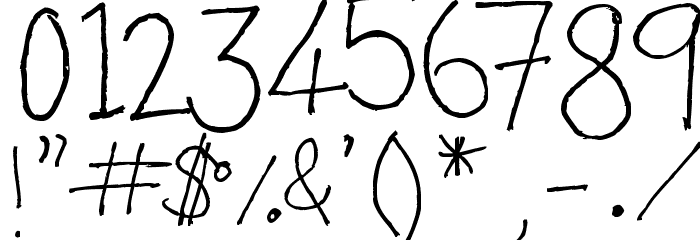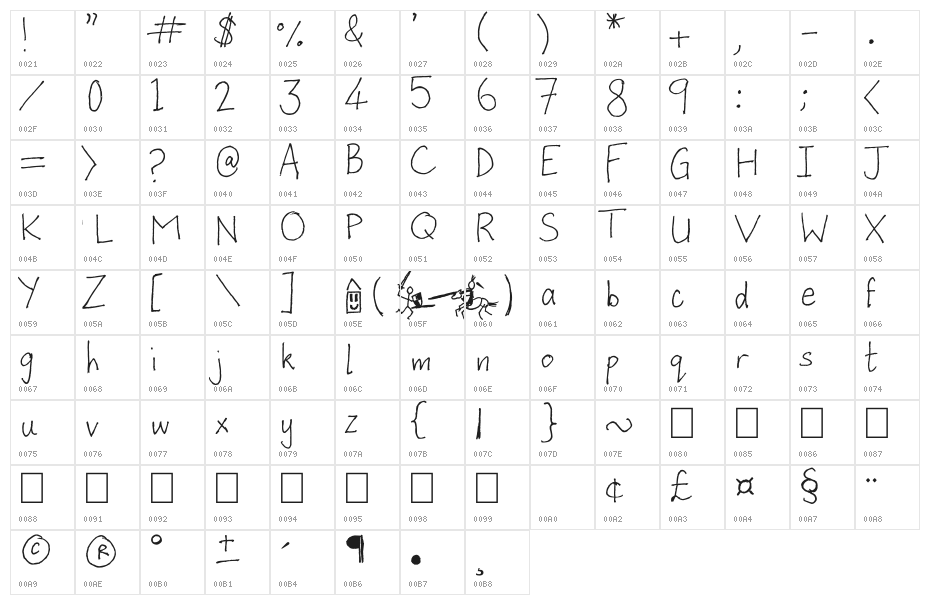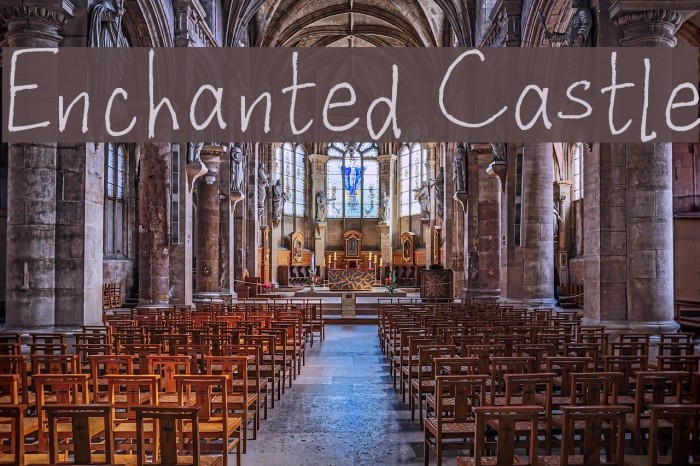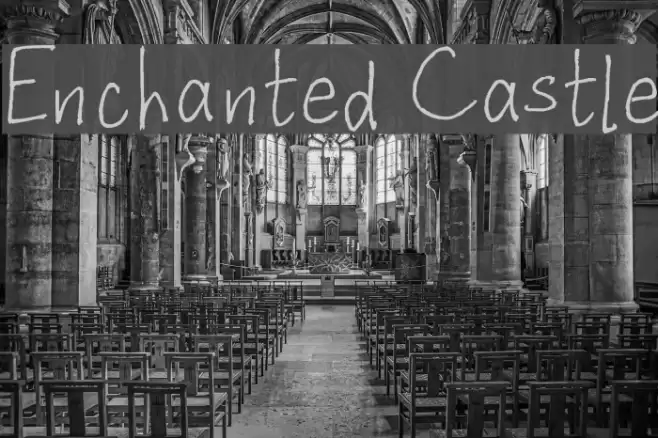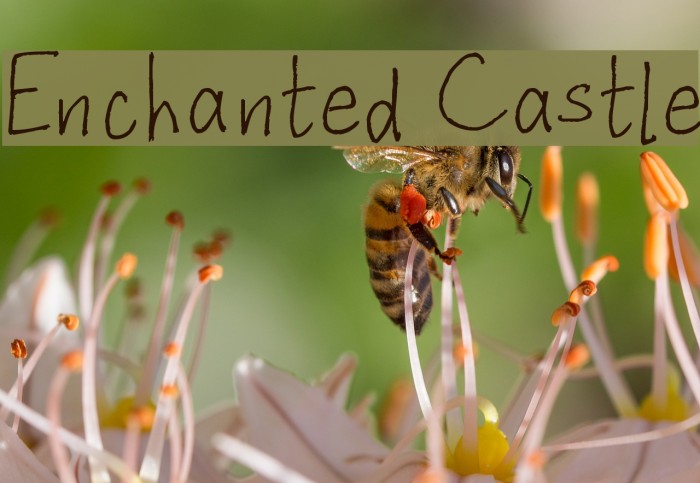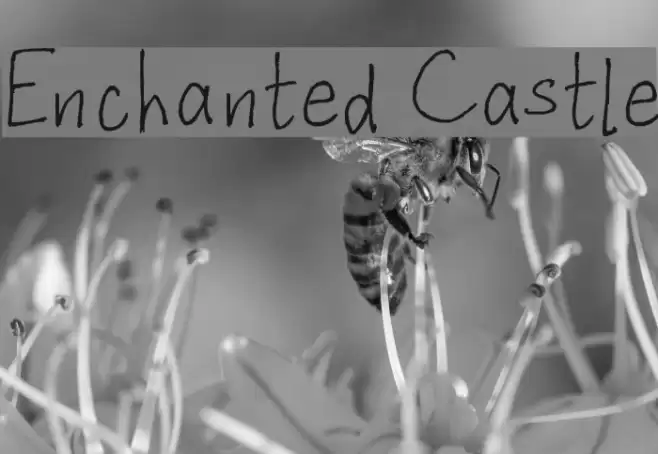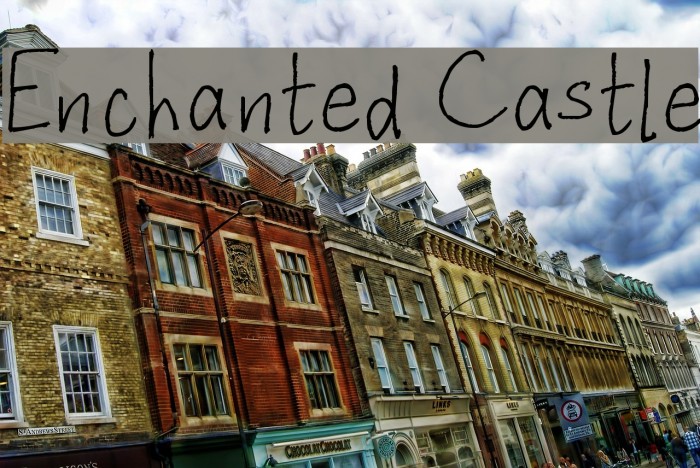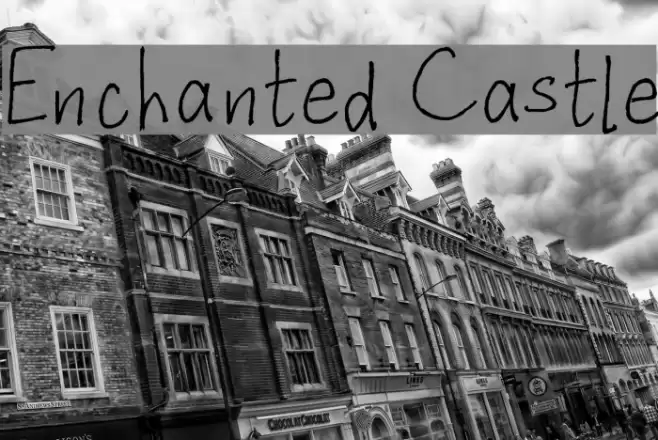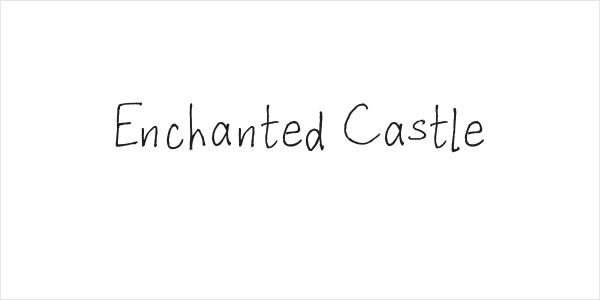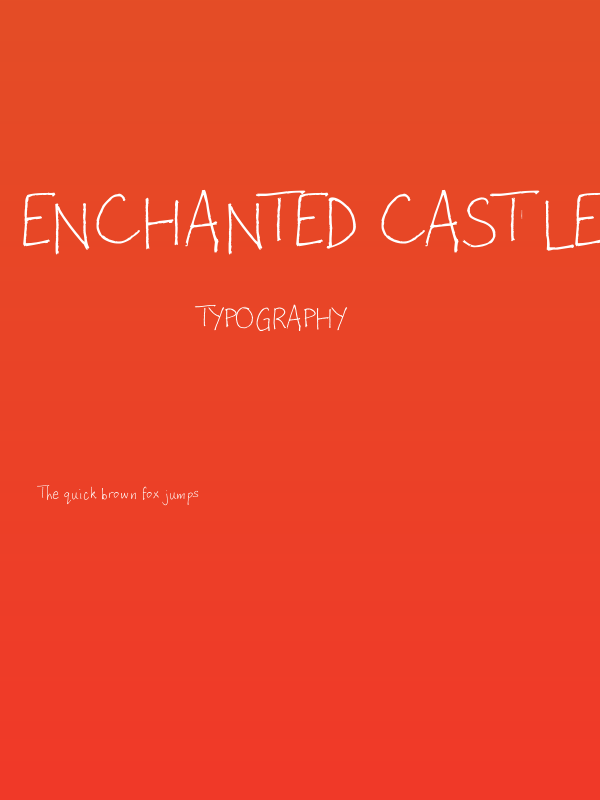
Enchanted Castle Font
Enchanted Castle Description
This font exudes a whimsical and playful charm, characterized by its hand-drawn, irregular strokes that give it a distinctly personal touch. The letters are slightly uneven, with varying heights and widths, adding to its casual and informal appearance. The uppercase letters maintain a consistent style with a slight slant, while the lowercase letters exhibit more variation in their form, enhancing the font's organic feel. The numerals are bold and clear, with a quirky flair that matches the overall aesthetic. Special characters are creatively styled, maintaining the font's unique personality. This font is perfect for projects that require a touch of creativity and individuality.
| Use Case | Headlines, Creative projects, Informal text |
| Proposed Projects | Ideal for children's books, greeting cards, creative posters, and playful branding. |